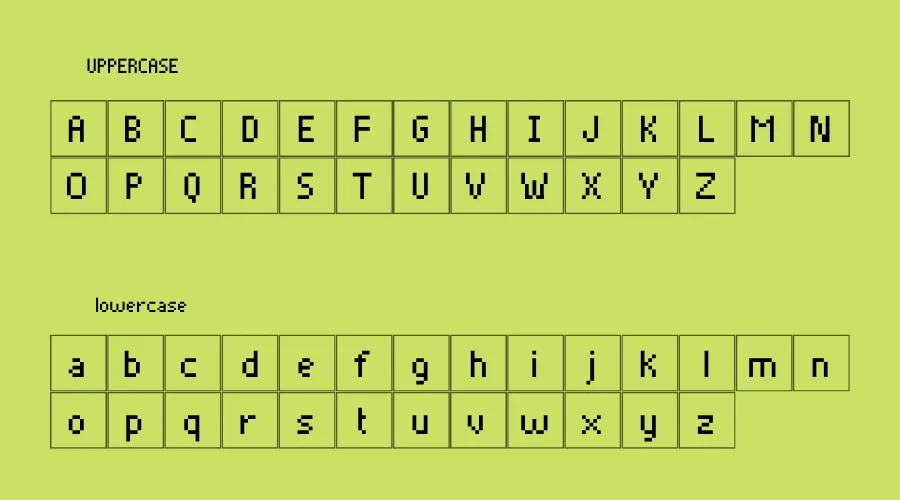
About Pixelade Font
Astramat designed Pixelade Font which belongs to the Retro category. Due to its attractive appearance, it attracts the viewers attention just because of its sharp features. The font's letters are incredibly appealing and can be used to create a variety of designs.